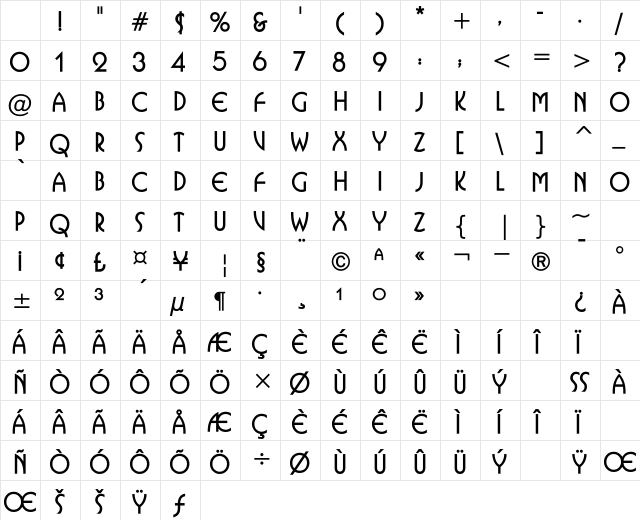
Complete PaellaCaps Bold glyph index. Displaying only characters natively supported by PaellaCaps Bold font.
PaellaCaps is a composed and adaptable typeface that performs quietly and consistently across a wide range of design contexts. Its bold stroke weight gives it real presence on the page.